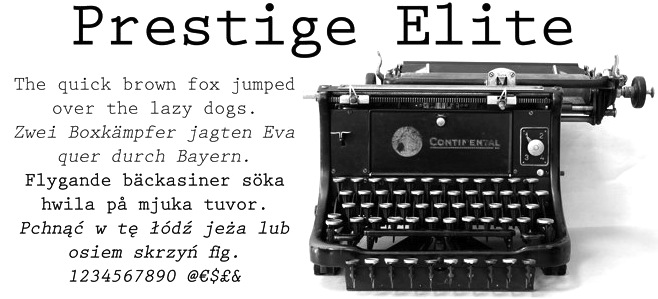
Howard G. Bud Kettler
Designer from Lexington, KY, b. 1919, d. 1999. He was most famous for creating Courier for IBM in 1955. Some sources claim that he created the monospaced Prestige Elite (1953; see here) for the IBM Selectric typewriters. But evidence points more in the direction of Clayton Smith. URW has a digital version of Prestige Elite.
Courier has seen many digital implementations:
• URW Nimbus Mono L (free).
• TeXGyre Cursor (2007). Also free.
• Courier 10 Pitch. A digital family by Bitstream. See also Courier Ten, which is Courier 10 Pitch BT, offered in OpenType format as well as Type 1 for use with LaTeX. Package maintained by Daniel Benjamin Miller starting in 2020.
• The Apple system font Courier is a 1990 typeface by Bitstream.
• Kettler (2002). By Eric Olson, Priocess Type Foundry.
• Courier New (2000). Published by Microsoft, with the help of Adrian Frutiger.
• The free Courier Prime family by Alan Dague Greene (2013) was specially designed for screenwriters.
A student in Uberlandia, Brazil, Patrick Gouvea, created a great letter-based poster of a typewriter, and dedicated it to Kettler.